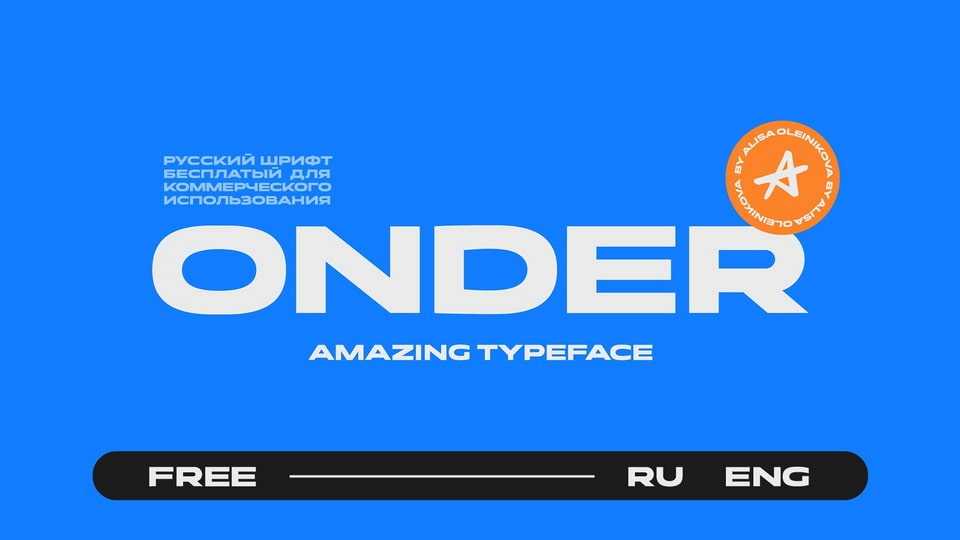
Download Onder font, a bold and powerful sans-serif typeface that exudes confidence and clarity. With its geometric structure, tight spacing, and sharp corners, Onder is designed to make a strong impression.
Designer: Alisa Oleinikova